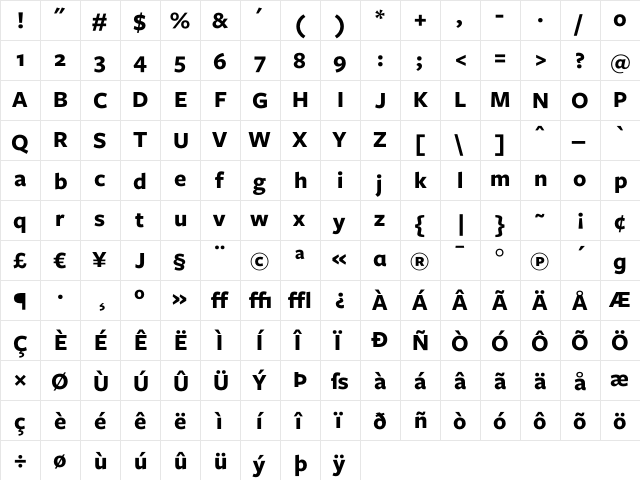
Freight Sans Bold
| Foundry | Joshua Darden & Phil's Fonts, Inc |
| Designer | Joshua Darden |
Design Context for Freight Typeface
Freight takes a measured approach to typography — its balanced proportions and neutral character make it a reliable workhorse for both digital and print work. Its bold stroke weight gives it real presence on the page.